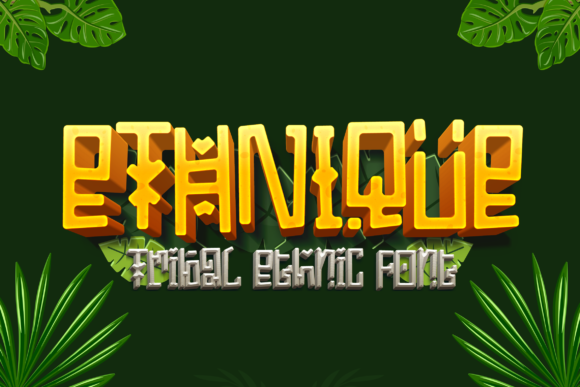
Embark on a Typographic Expedition with Ethnique Font: Unearth the Enchanting Spirit of Aztec Art in Your Designs
In a world saturated with mundane fonts, Ethnique Font emerges as a captivating oasis of creativity, inviting you to infuse your designs with the mystique of ancient Aztec art. This remarkable display font, crafted by the visionary artists at tokokoo.studio, is not merely a collection of letters; it's a gateway to a bygone era, where symbols whispered tales of gods, heroes, and a cosmos teeming with life.
Picture your designs adorned with the intricate patterns and bold glyphs of Ethnique Font. Each character carries the weight of history, embodying the spirit of a civilization that revered the harmony between nature and humanity. Unleash the power of Ethnique Font to transform ordinary text into captivating narratives, where every word resonates with the allure of ancient wisdom.
With Ethnique Font as your creative compass, embark on a journey where typography meets artistry. Discover the boundless possibilities of this extraordinary font, perfectly suited for logos that demand attention, posters that ignite imaginations, and branding that leaves an indelible mark. Its captivating style breathes life into social media posts, website headers, and any design project yearning for a touch of the extraordinary.
Embrace the allure of Ethnique Font and unlock a world of typographic enchantment. Let your designs dance to the rhythm of ancient Aztec art, captivating audiences with every stroke. Experience the thrill of creating visuals that transcend the ordinary, leaving an enduring impression that whispers of timeless beauty and profound meaning.